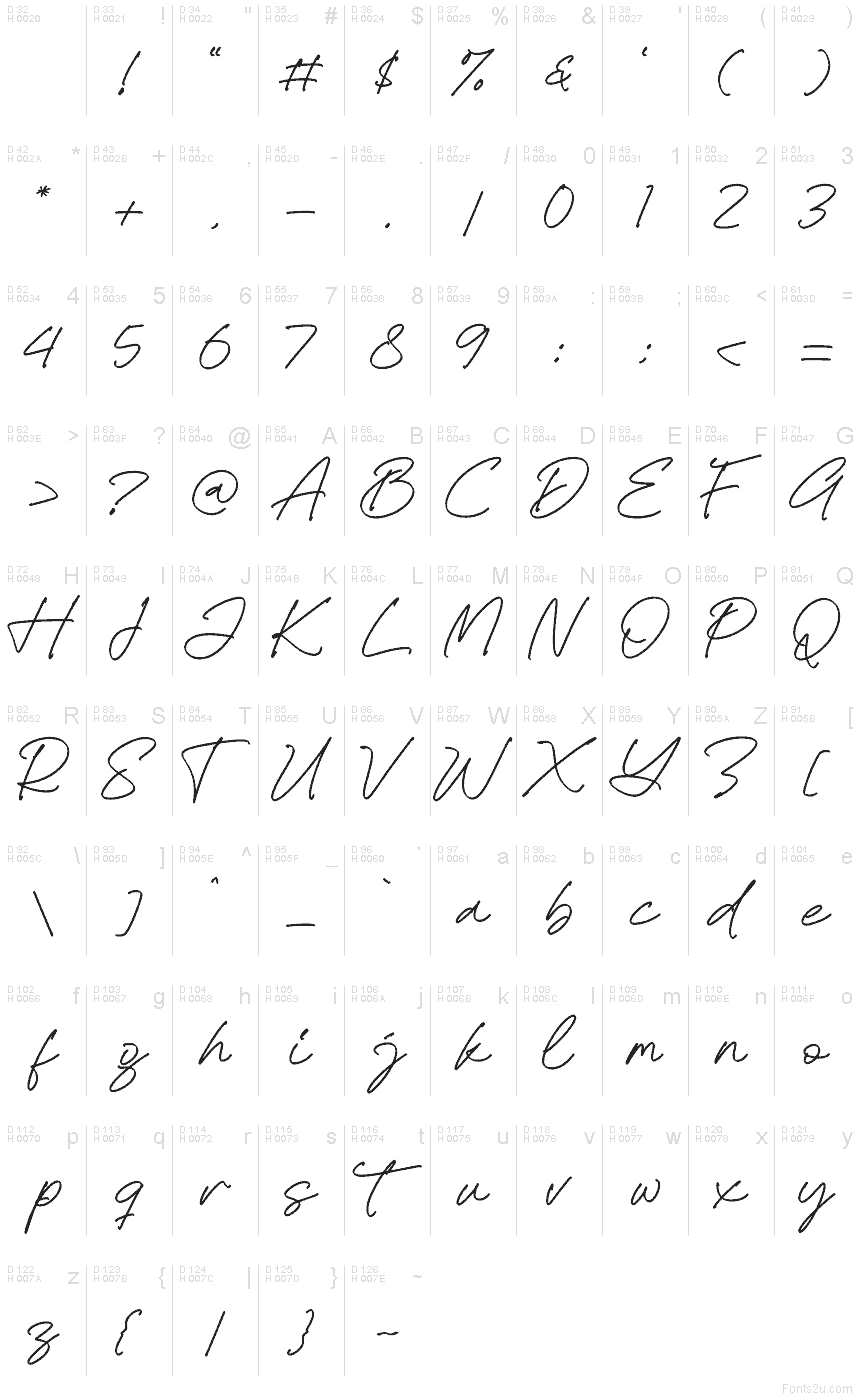
Besttie
Besttie font by Integritype Studio is a light handwritten font with an elegant flow reminiscent of beautiful handwriting and signature-style lettering. Showroom appeal projects how any title, quote, or logotype will appear while maintaining the delightful aspects of the Besttie signature style described in keywords such as decorative flair.
Add a personalized touch to brand logos, slogans, greeting cards, or packaging designs using this free handwritten font. Labels for clothing lines and scents are other commercial applications that Besttie can visually enhance given its casual sophistication.